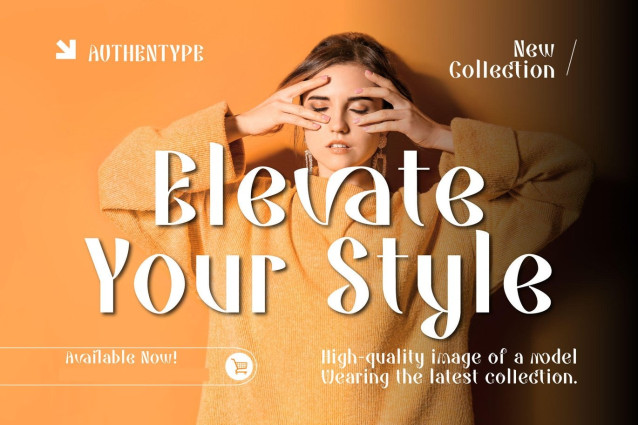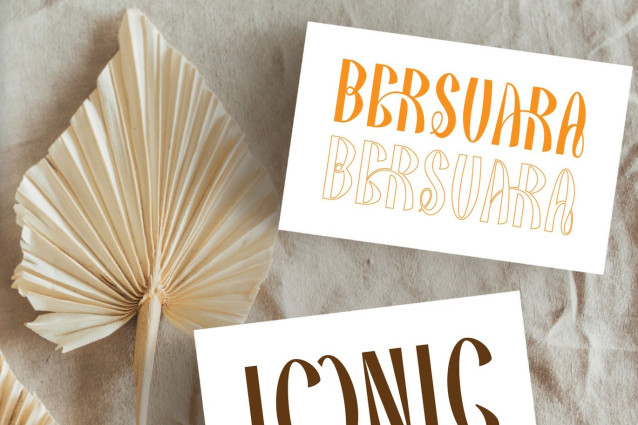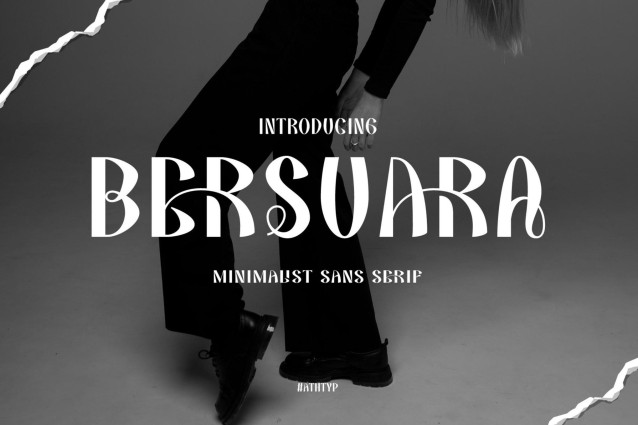
Bersuara Font
Bersuara Font, a bold and sumptuous sans serif font that knows how to make a statement. With its flowing, elegant shapes and sleek curves, this typeface is designed to stand out in all the right ways. Whether you’re working on a high-end brand, luxury packaging, a fashion editorial, or an eye-catching poster, Bersuara brings the character and class your design deserves. Inspired by expressive visual rhythm and organic shapes, each letter feels like it has its own personality: confident, elegant, and full of flair. It’s more than a typeface—it’s a voice. Perfect for designers looking for something chic, artistic, and decidedly bold.